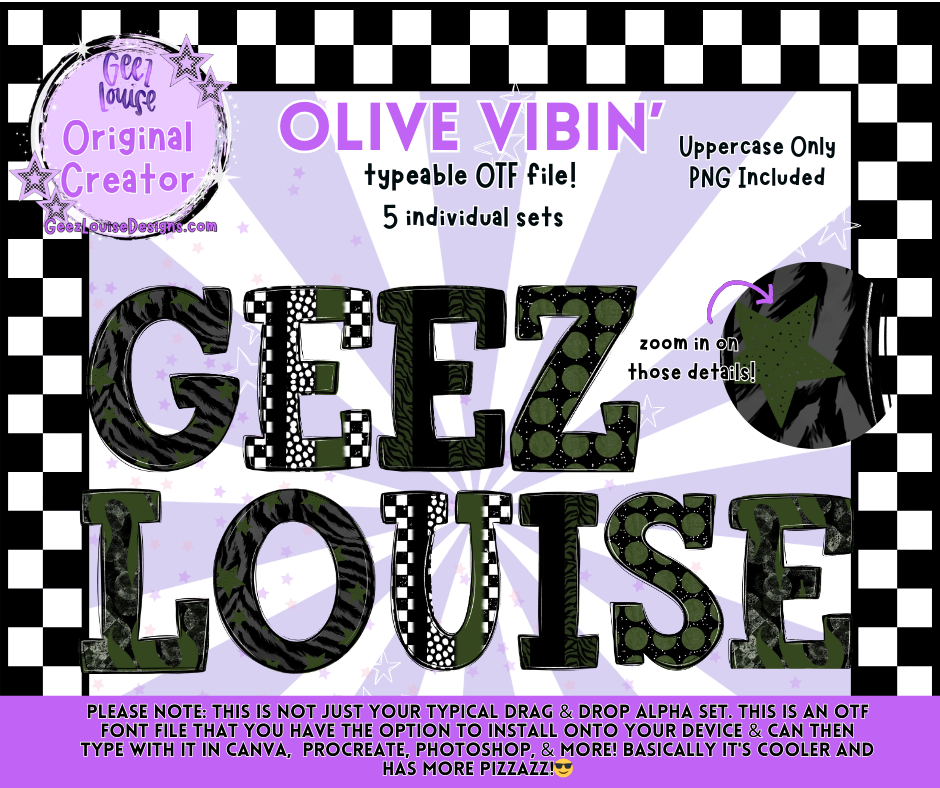
OLIVE VIBIN’ — Typeable OTF Alpha Font (5 Sets!) + PNGs
Meet Olive Vibin’, the earthy, trendy, aesthetic‑girl alpha set your shop has been waiting for. With five individual style variations, this typeable OTF font gives you endless mix‑and‑match options for branding, apparel, stickers, and digital products. Think cozy neutrals, boho textures, and that perfect olive‑green palette everyone loves.
• 5 unique alpha styles built into the font
• Uppercase A–Z
• High‑detail textures + clean edges
✨ Why You’ll Love It